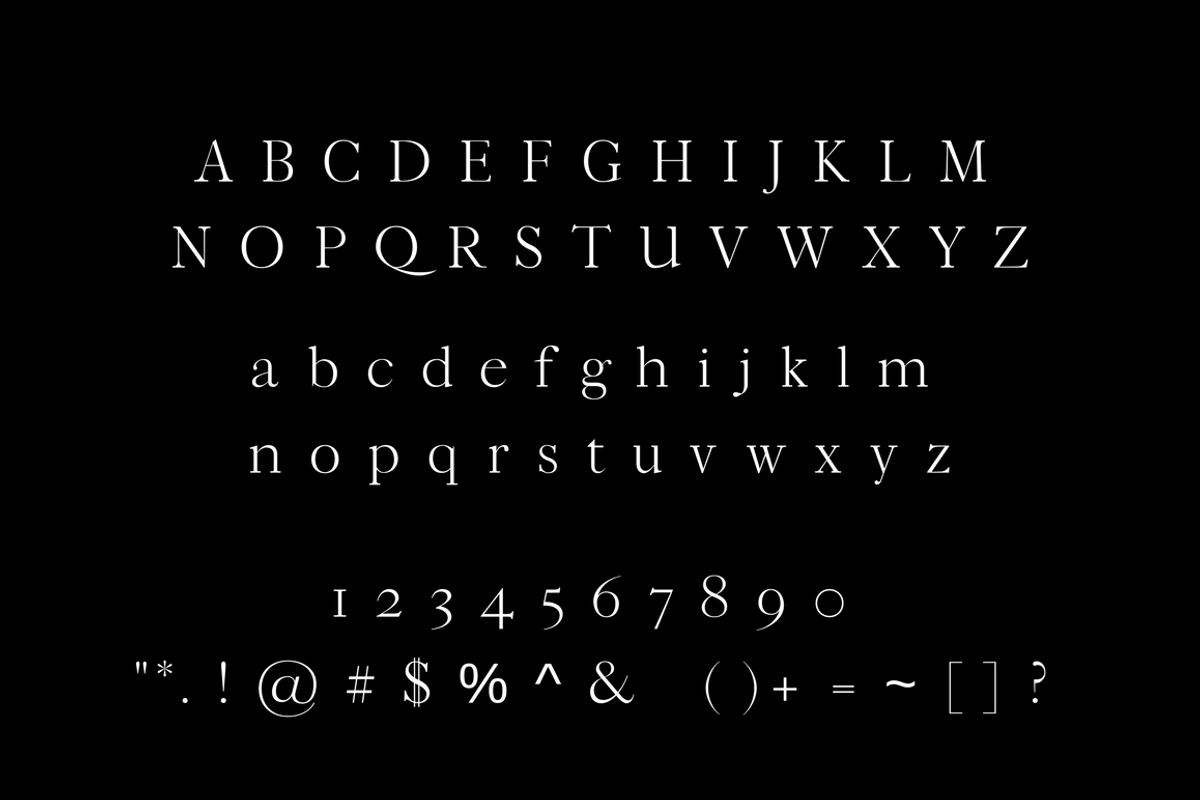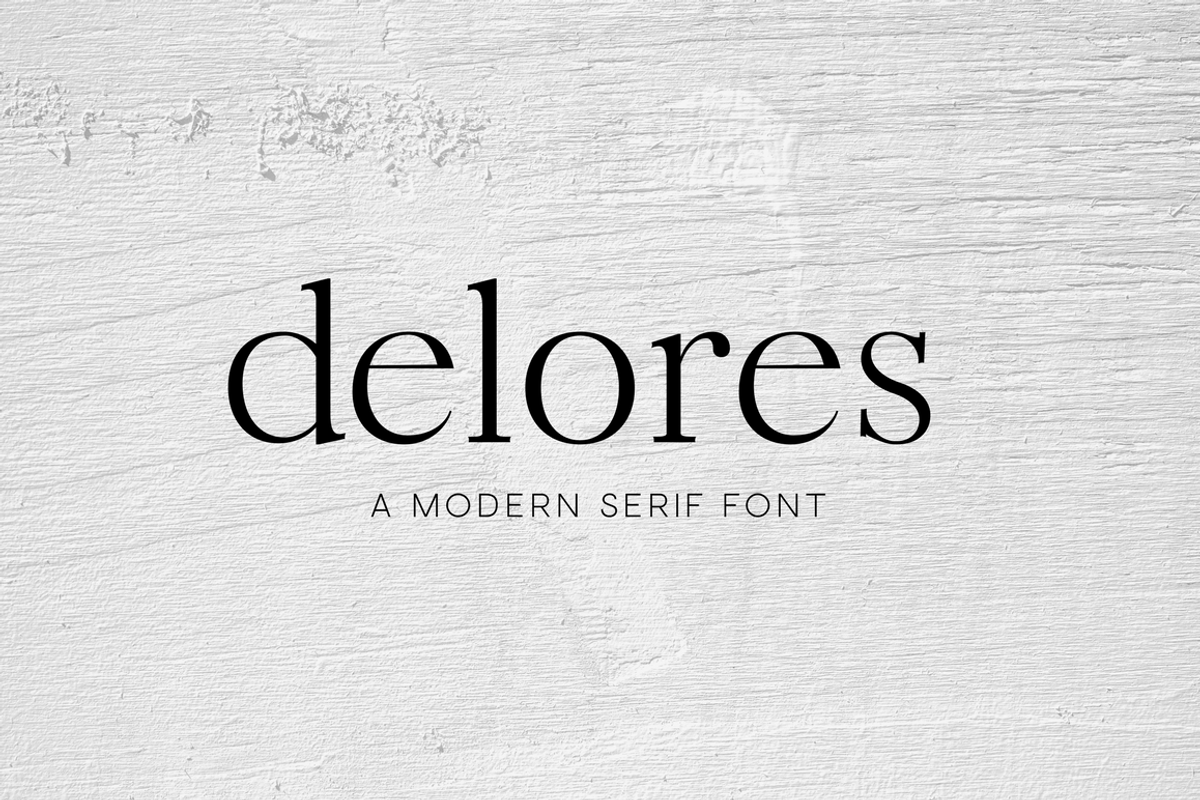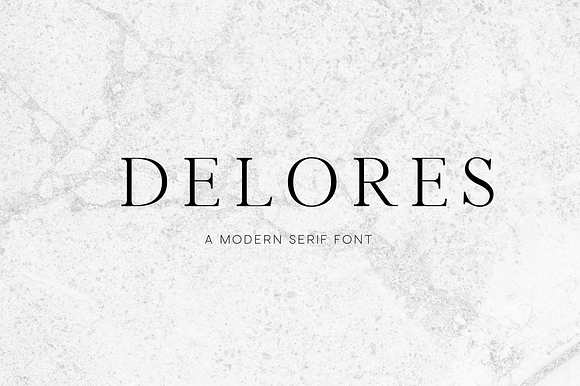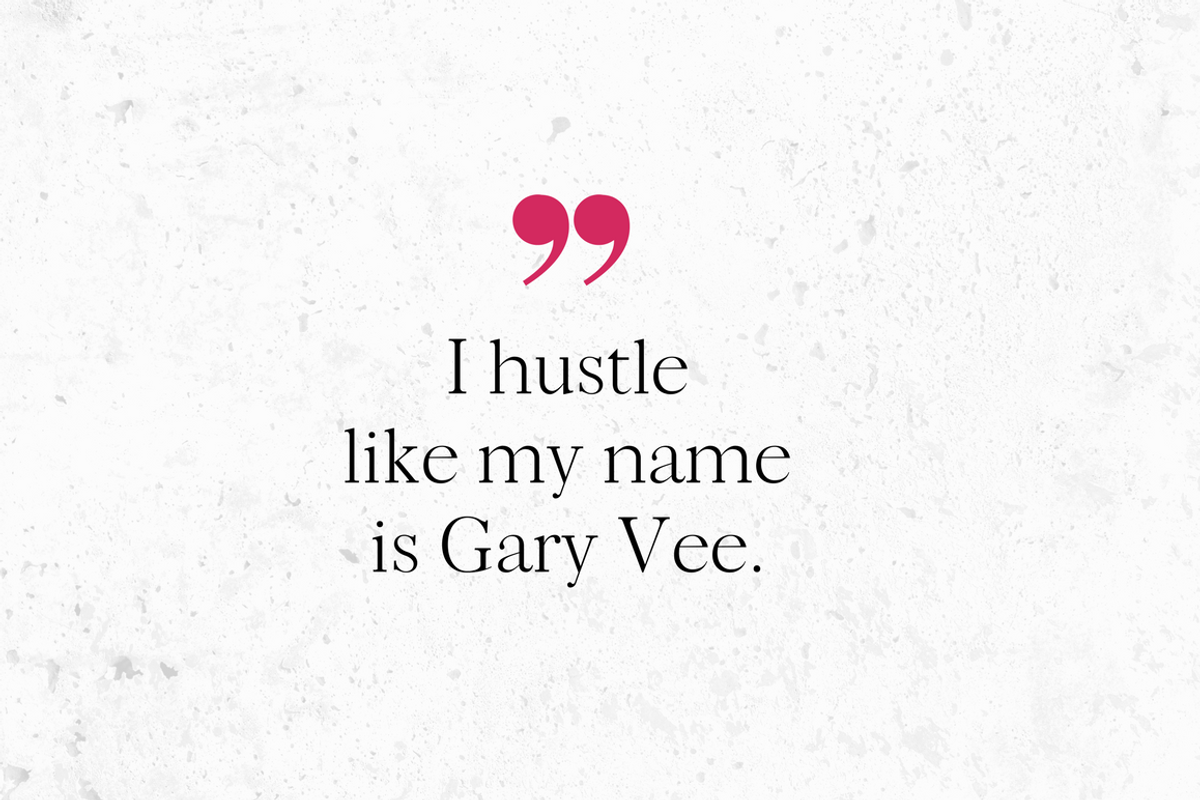
Delores - A Modern Serif Font
Introducing Delores a fun serif font created by Black Dahlia Press.
Uppercase, lowercase, numerals + punctuation included.